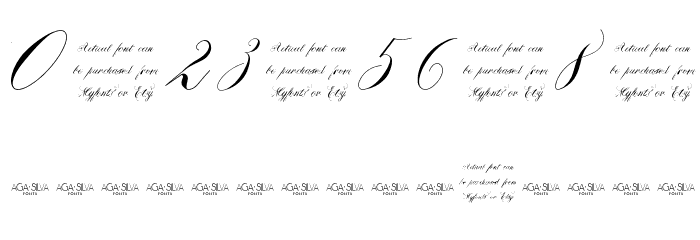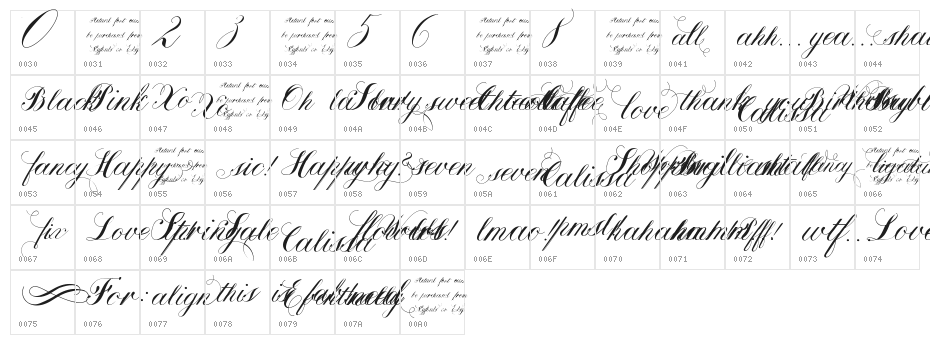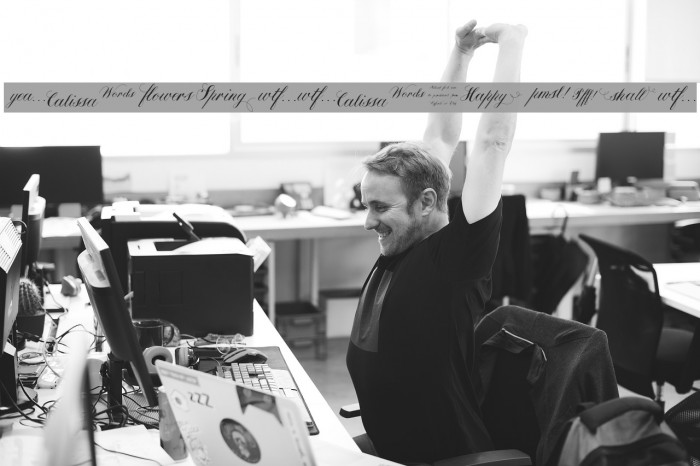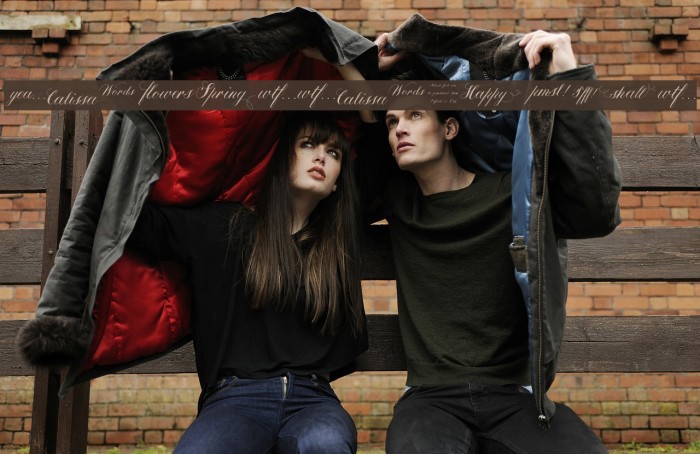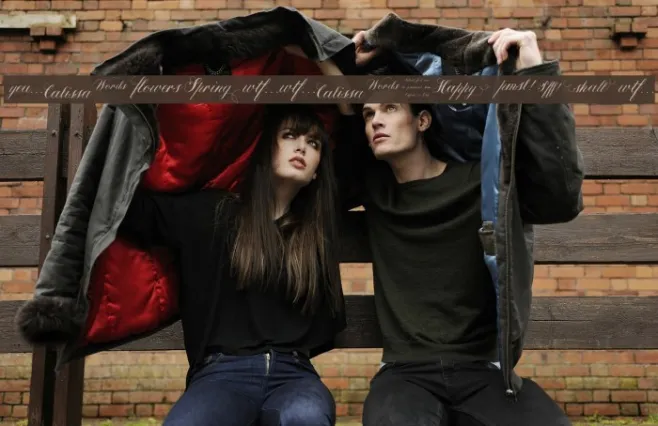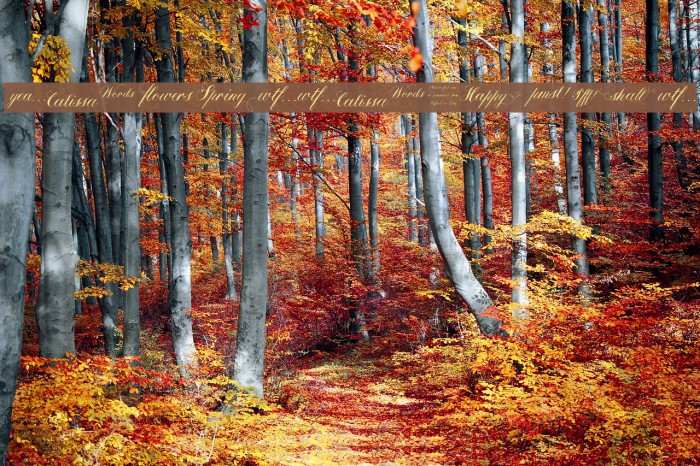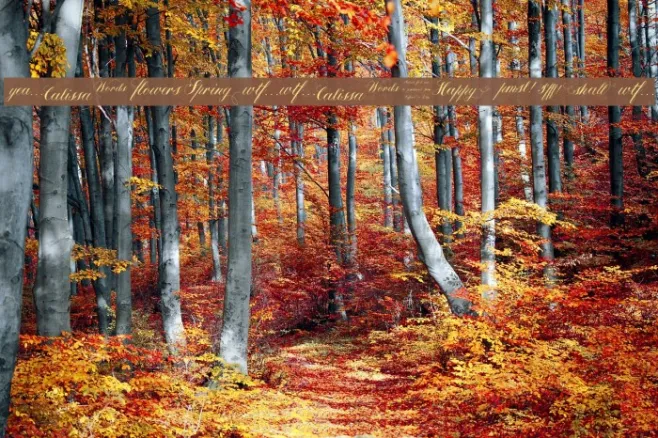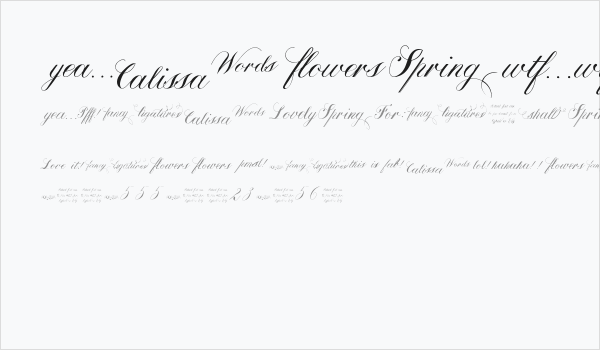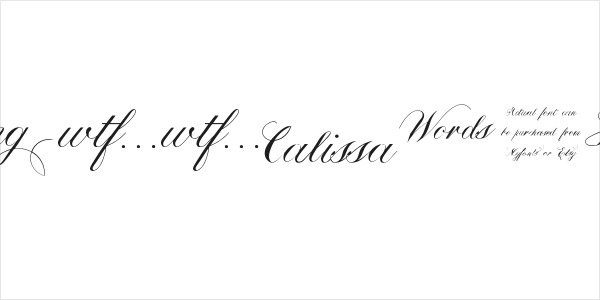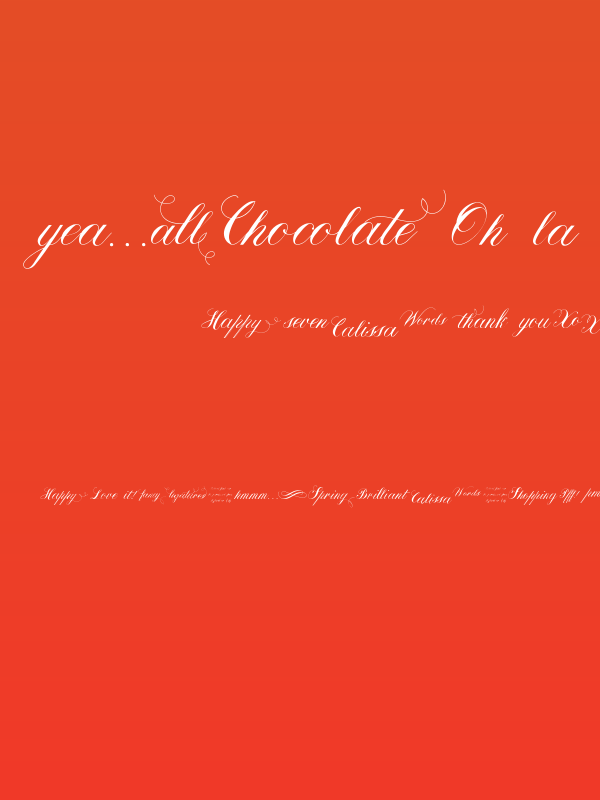
Calissa Words Font
Calissa Words Description
This elegant script font features a flowing, cursive style with delicate, elongated strokes and intricate swashes. The characters are connected, creating a seamless and sophisticated appearance. The font exudes a sense of grace and refinement, making it ideal for formal invitations, branding, and decorative purposes. Its high contrast between thick and thin strokes adds to its elegance, while the ornate details in certain letters enhance its decorative appeal. The overall design is both classic and modern, suitable for projects that require a touch of luxury and sophistication.